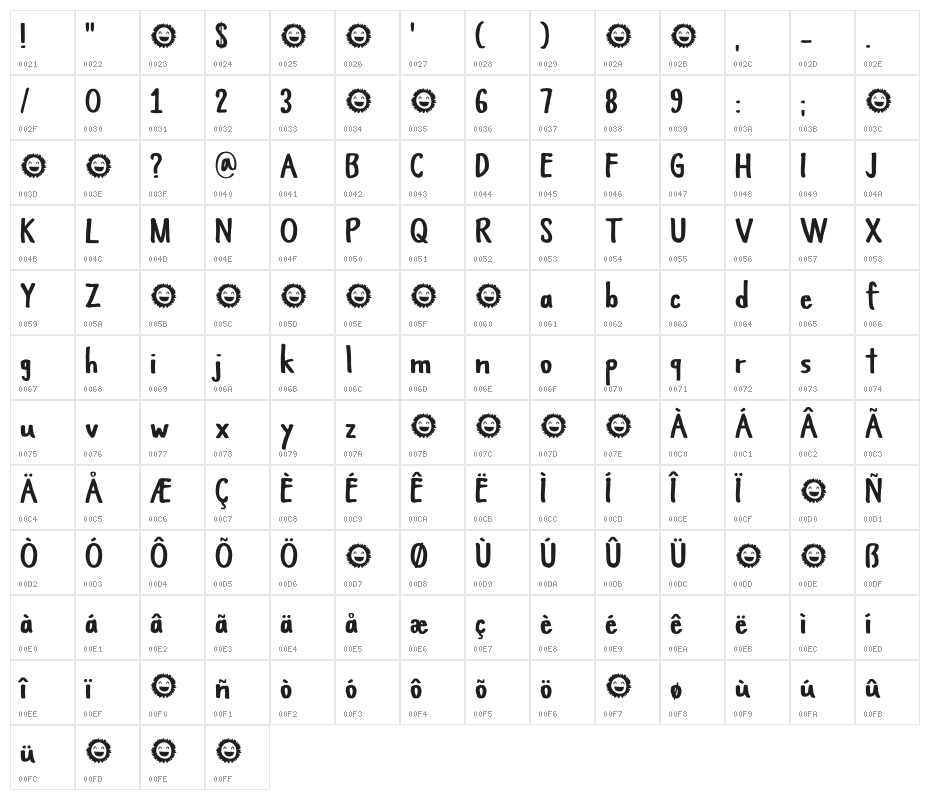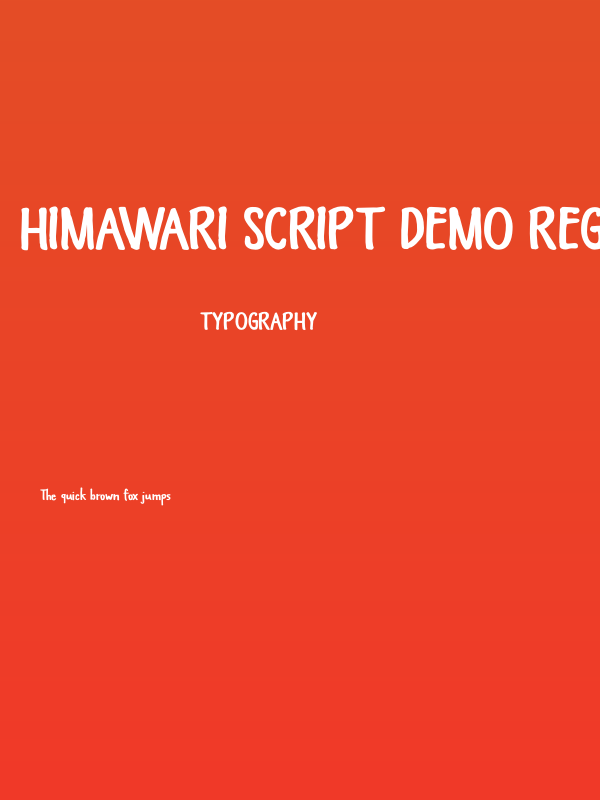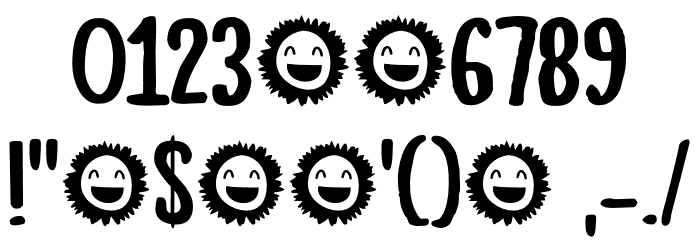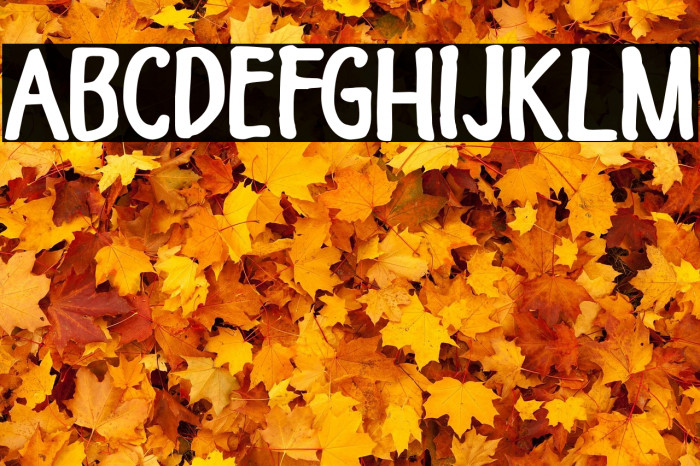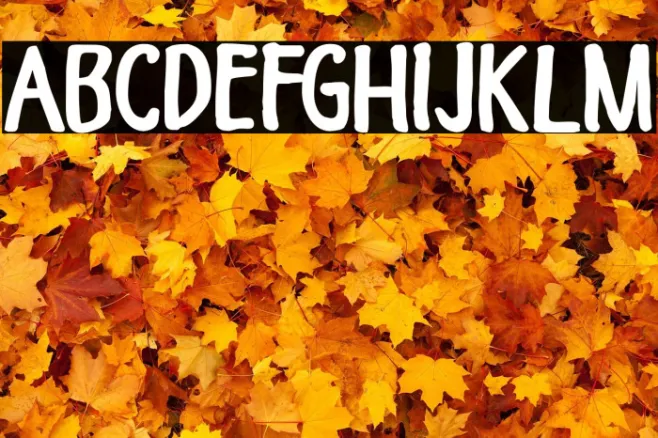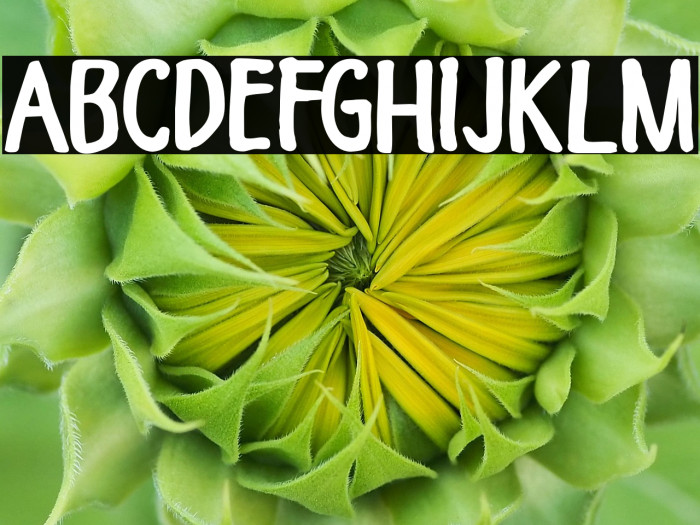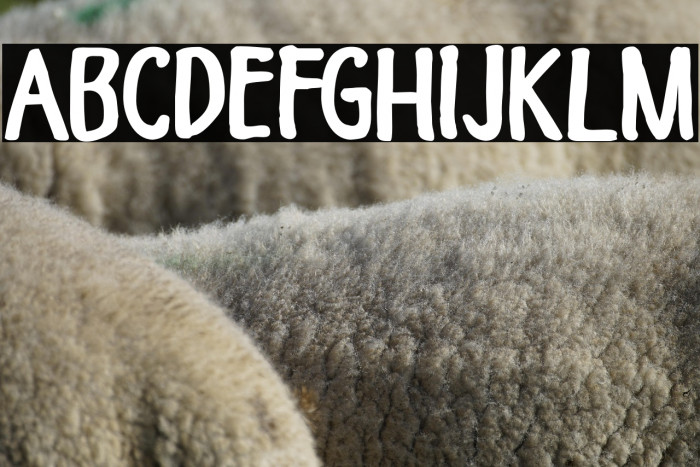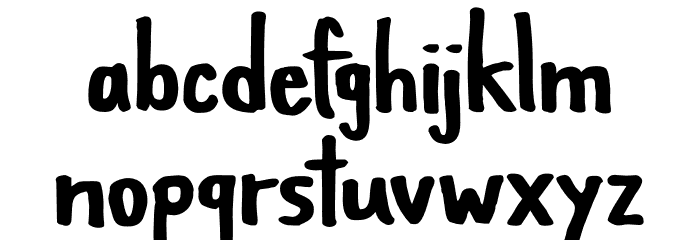
Himawari Script DEMO Regular Font
Himawari Script DEMO Regular Description
This playful and whimsical font features a hand-drawn style with bold, rounded strokes that give it a friendly and approachable appearance. The characters are slightly irregular, adding to the casual and informal feel. The uppercase and lowercase letters maintain a consistent style, with a slight tilt that enhances the dynamic look. The numbers and special characters are equally expressive, with unique smiley face symbols that add a touch of fun. This font is perfect for projects that require a lighthearted and cheerful vibe.